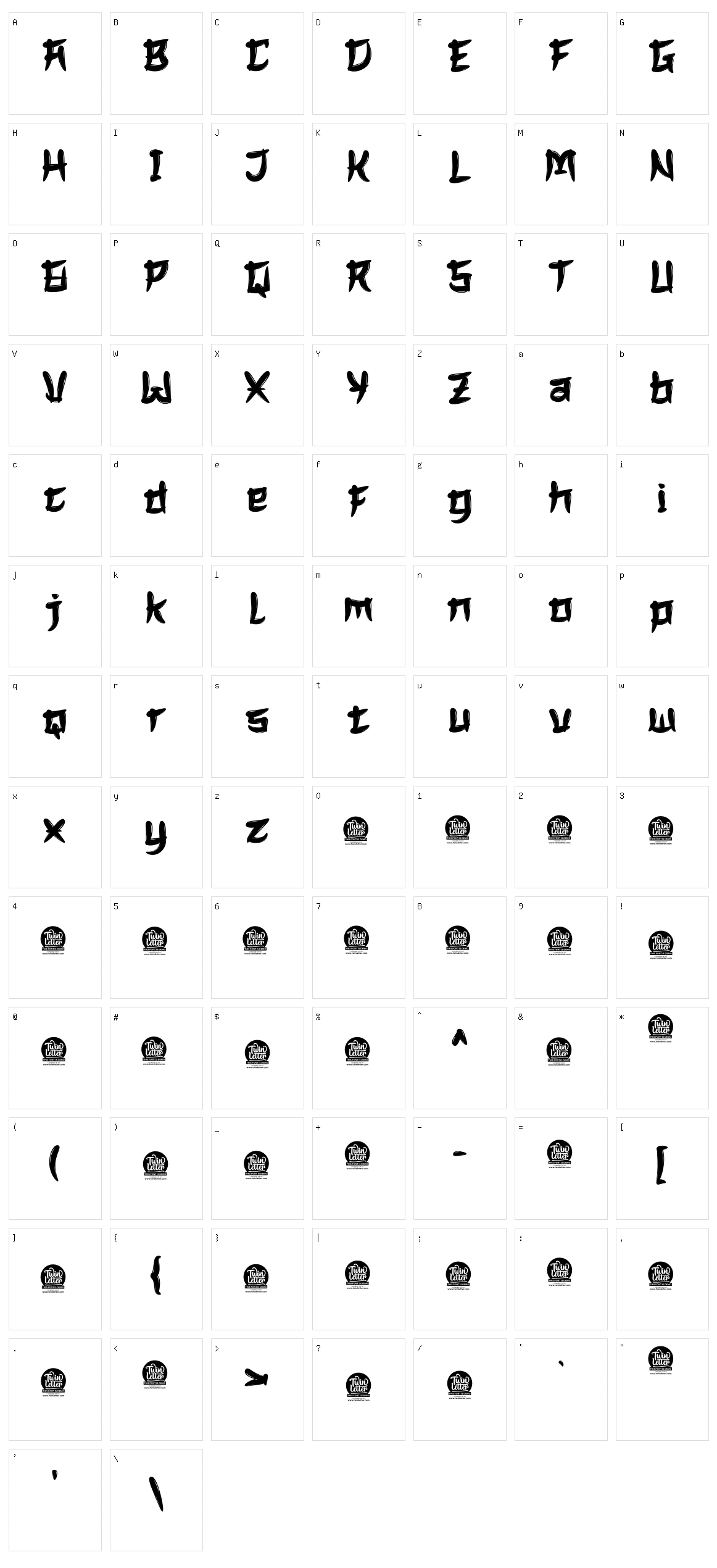
The free font Qatora is carefully designed by twinletter, showcasing a thoughtful balance of creativity and usability and falls under the Asian font style. When you download the ZIP file, it contains only 168.95 KB of font files, making it lightweight and quick to download. Please review the license details below to understand permitted usage and distribution rights. If license information is not available, we recommend using this font for personal projects only or contacting the author directly for commercial usage permissions.